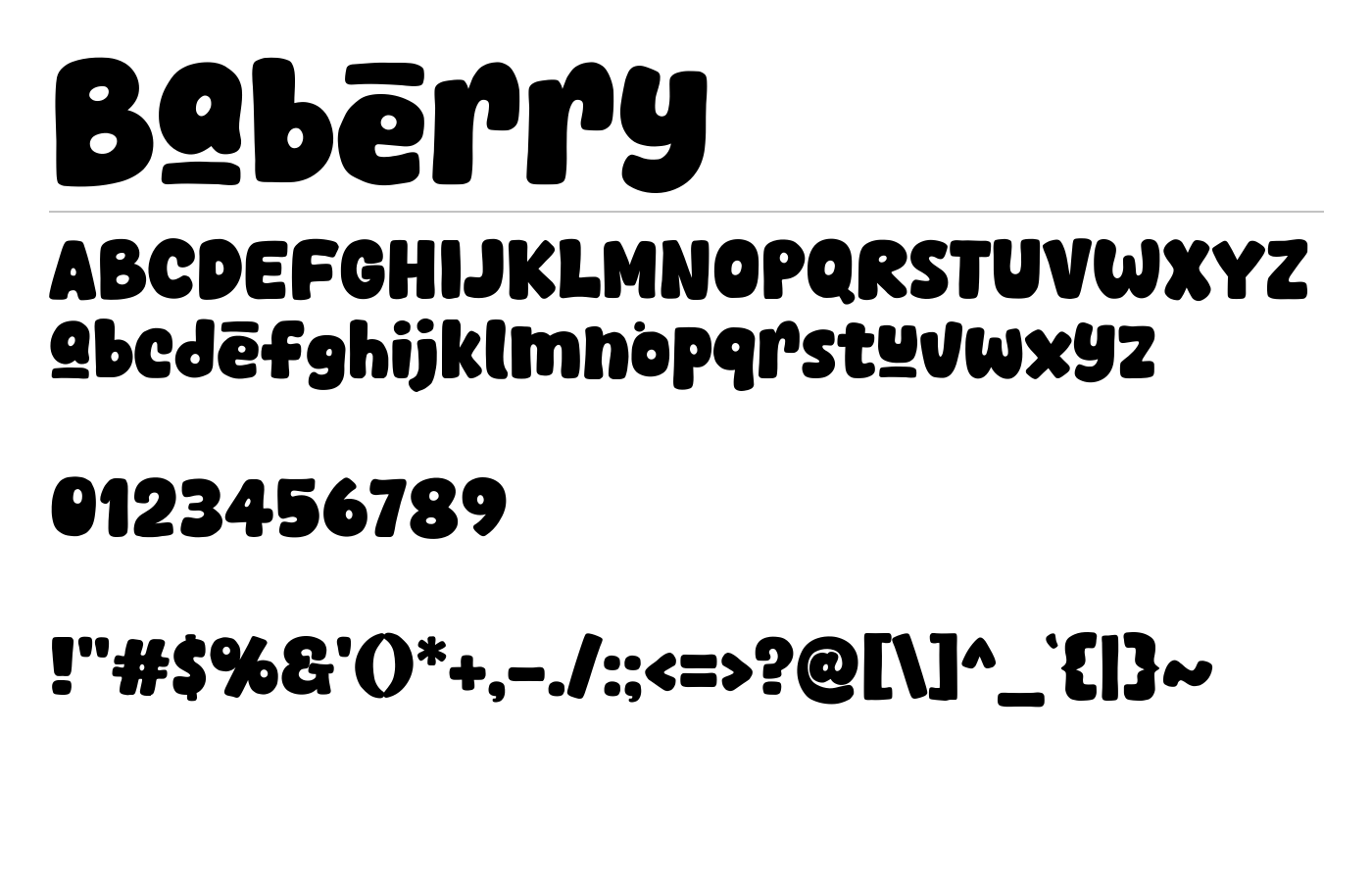
Baberry is a bold, playful sans serif font with chunky, rounded letterforms that give it a friendly and approachable feel. Its chunky weight, low contrast, and quirky details, like the unique underline accents on some lowercase letters, make it ideal for designs needing a fun and informal personality. This font works great for children's books, logos, posters, and branding that aims to be cheerful and eye-catching.
Baberry Font
About Baberry Font